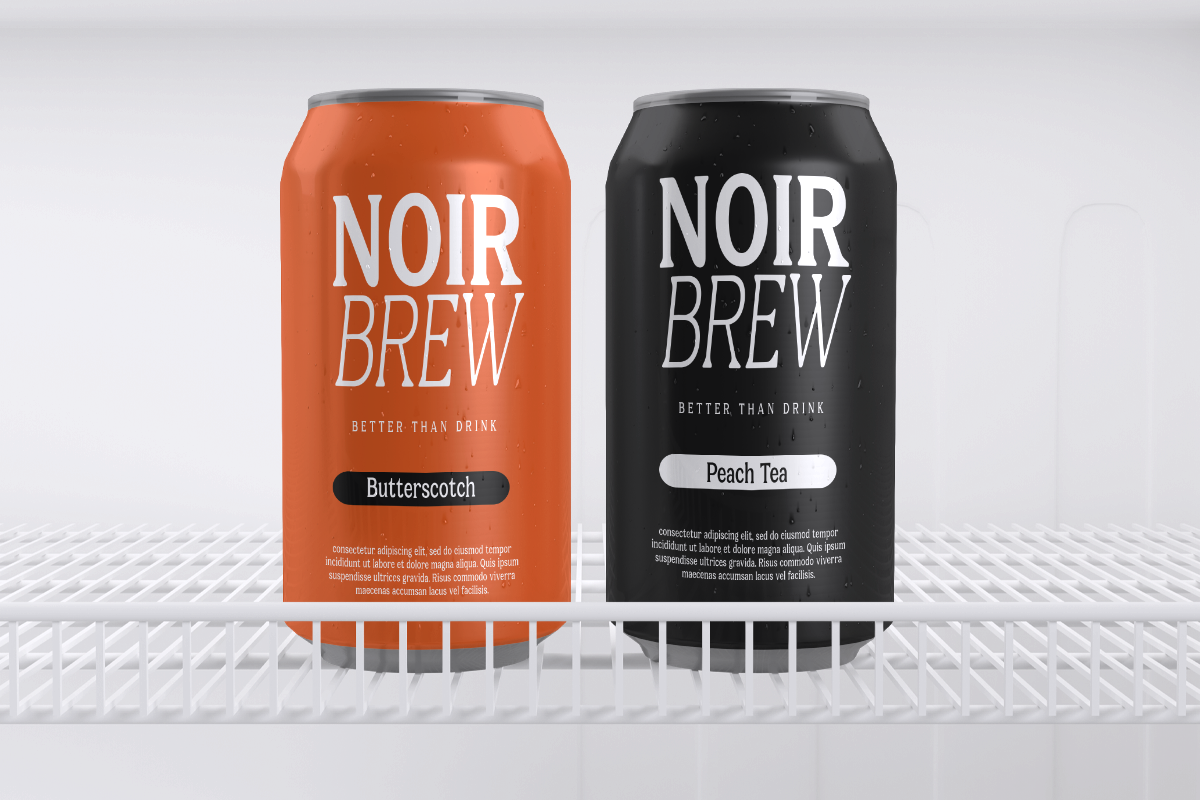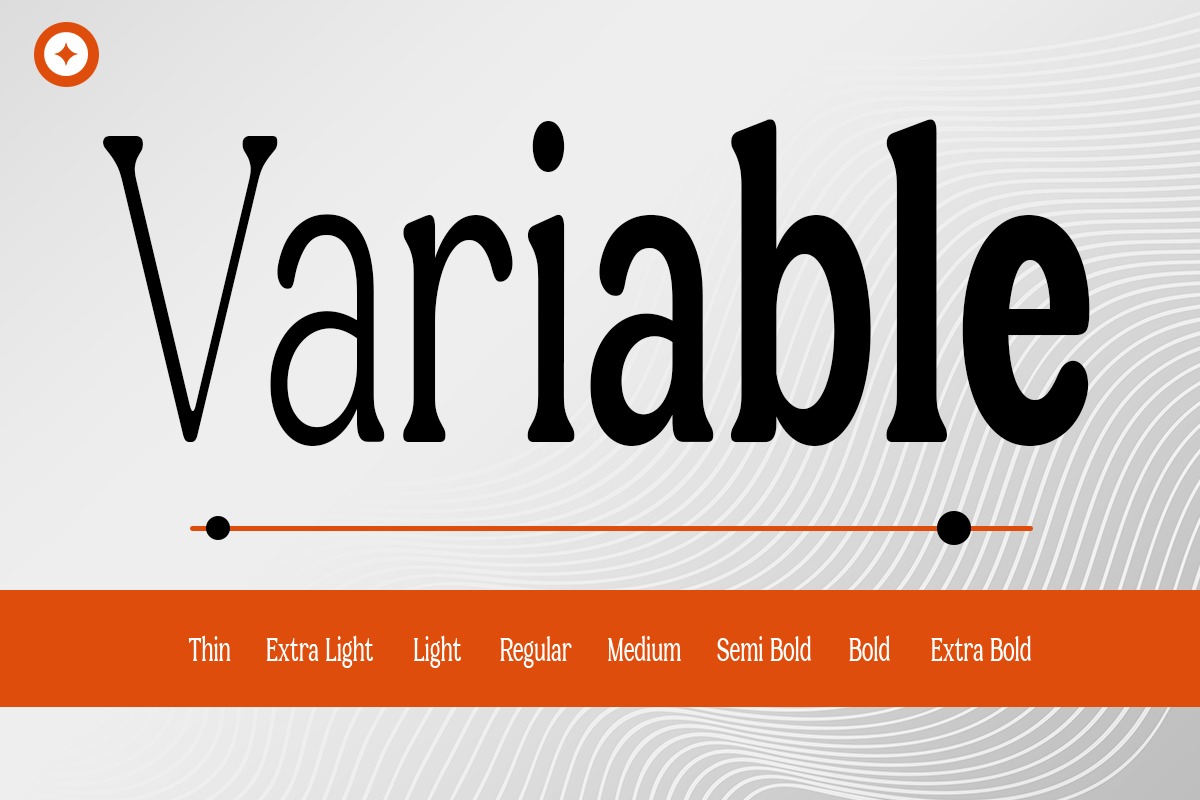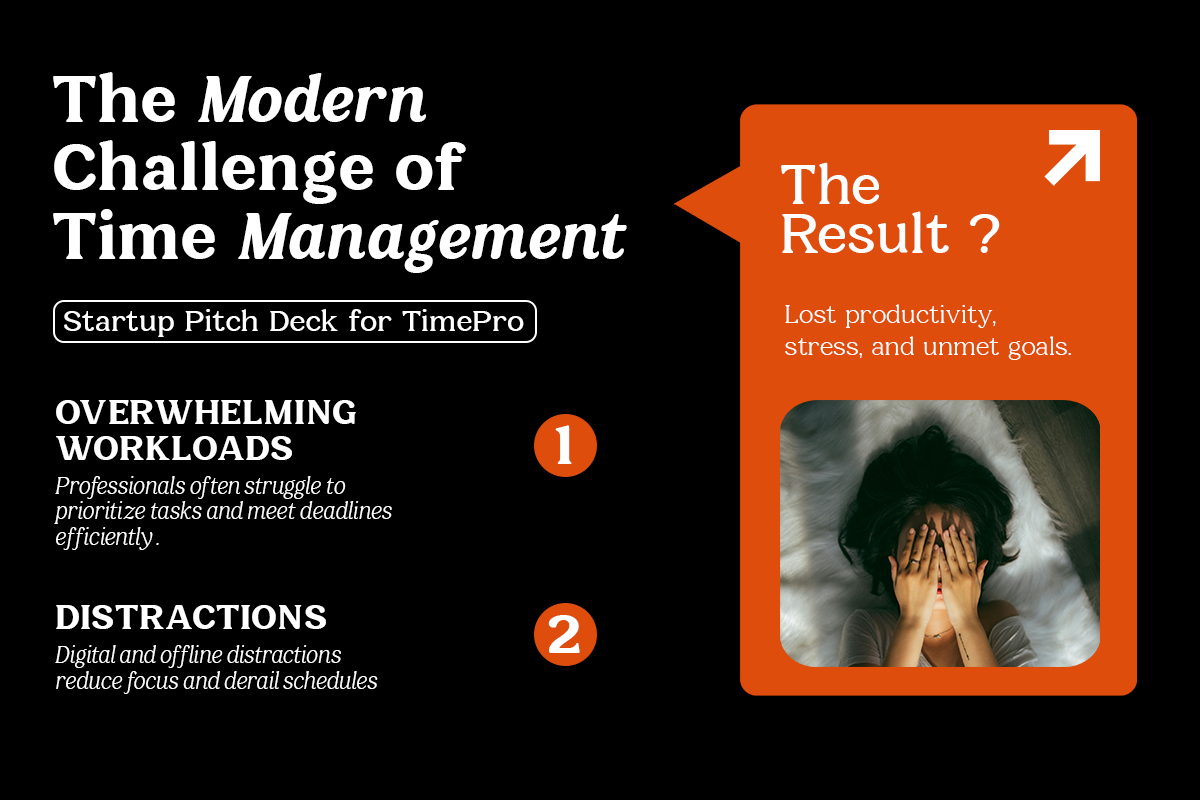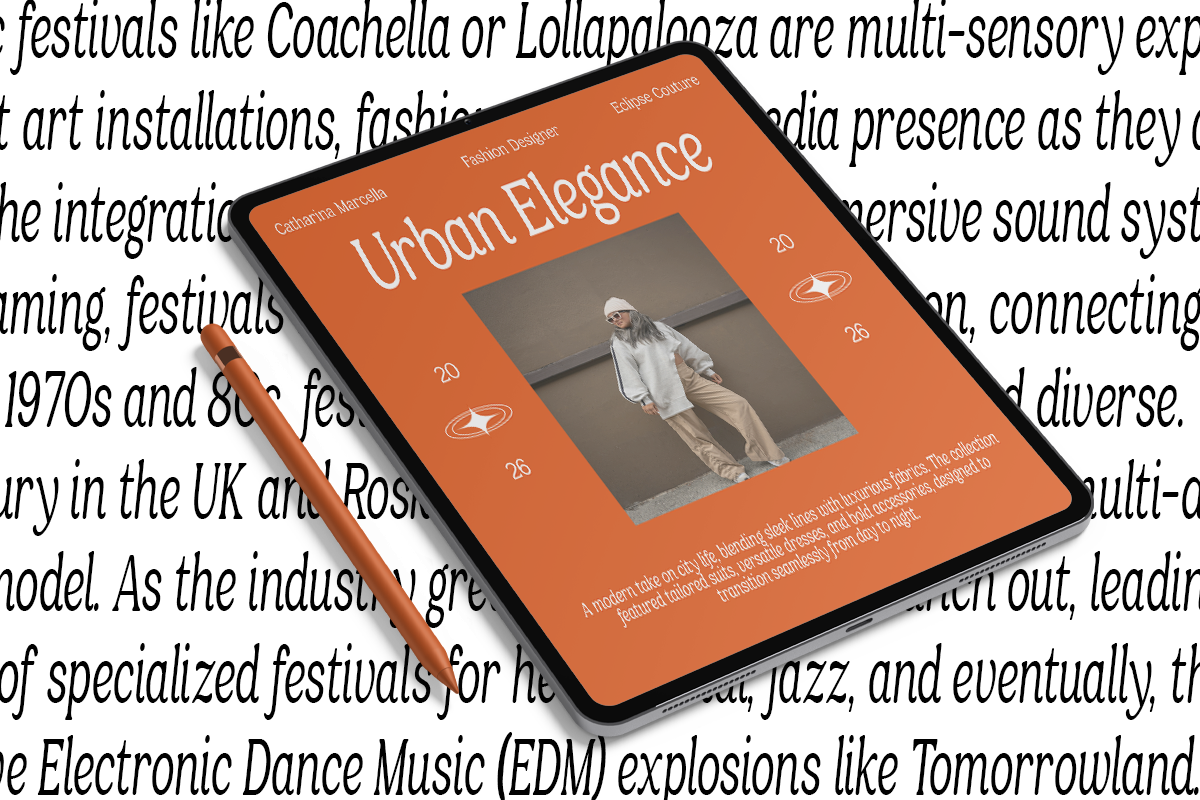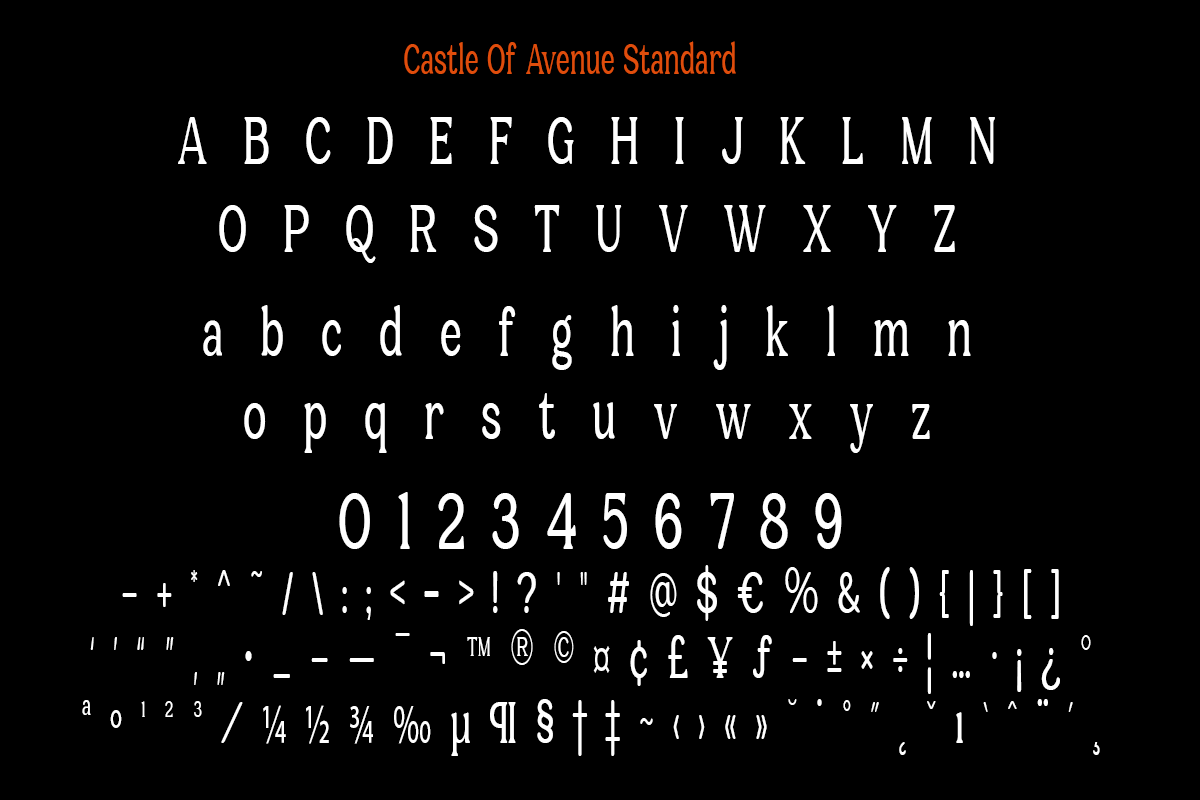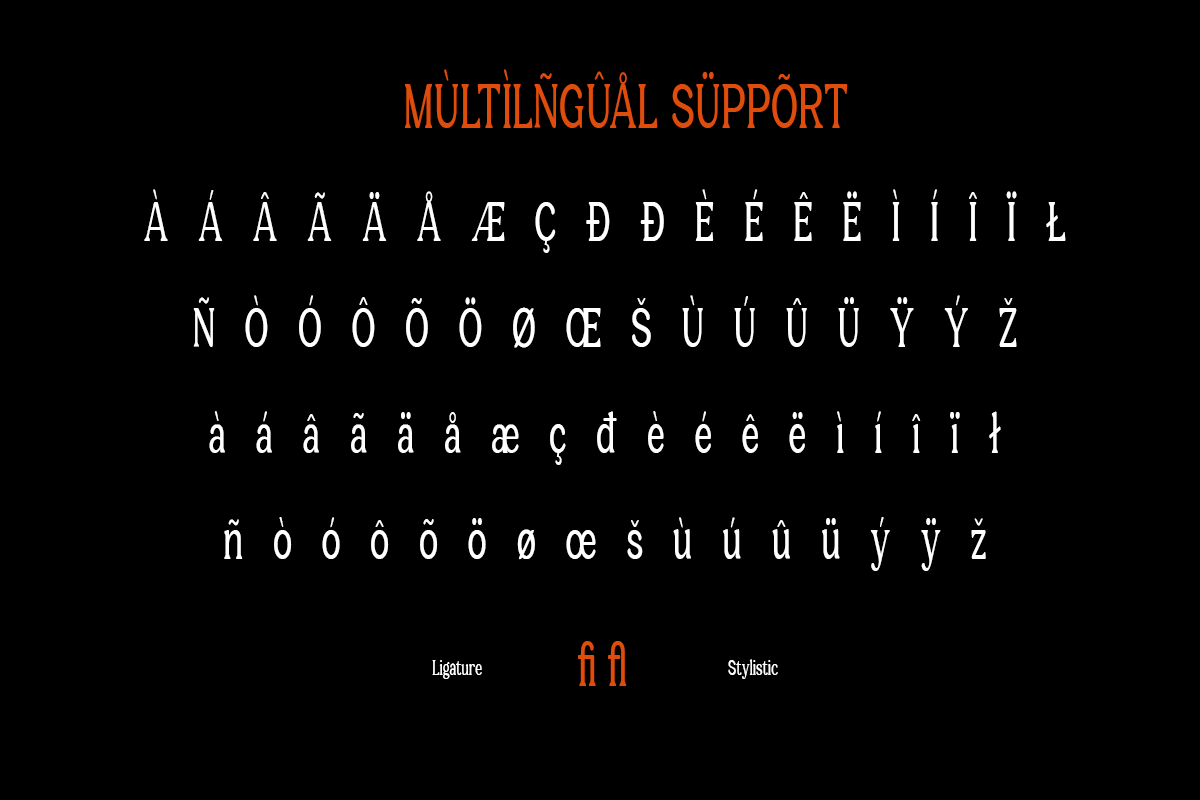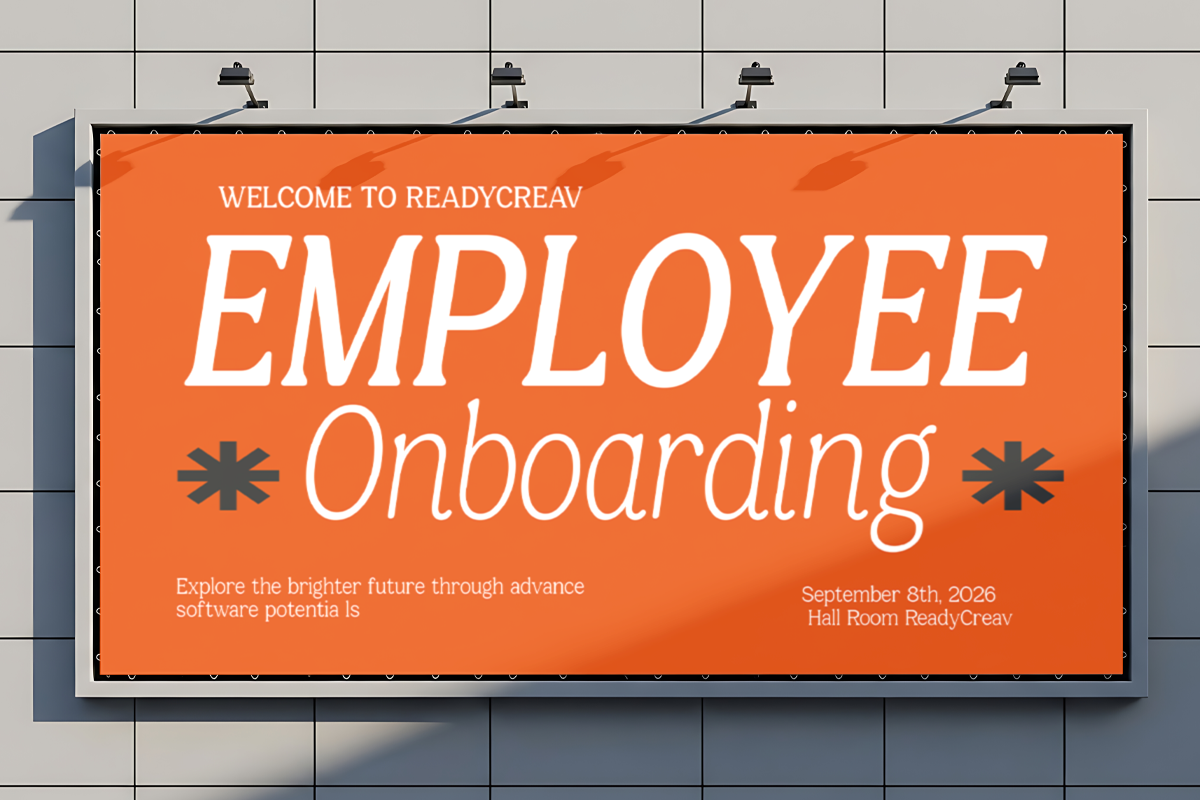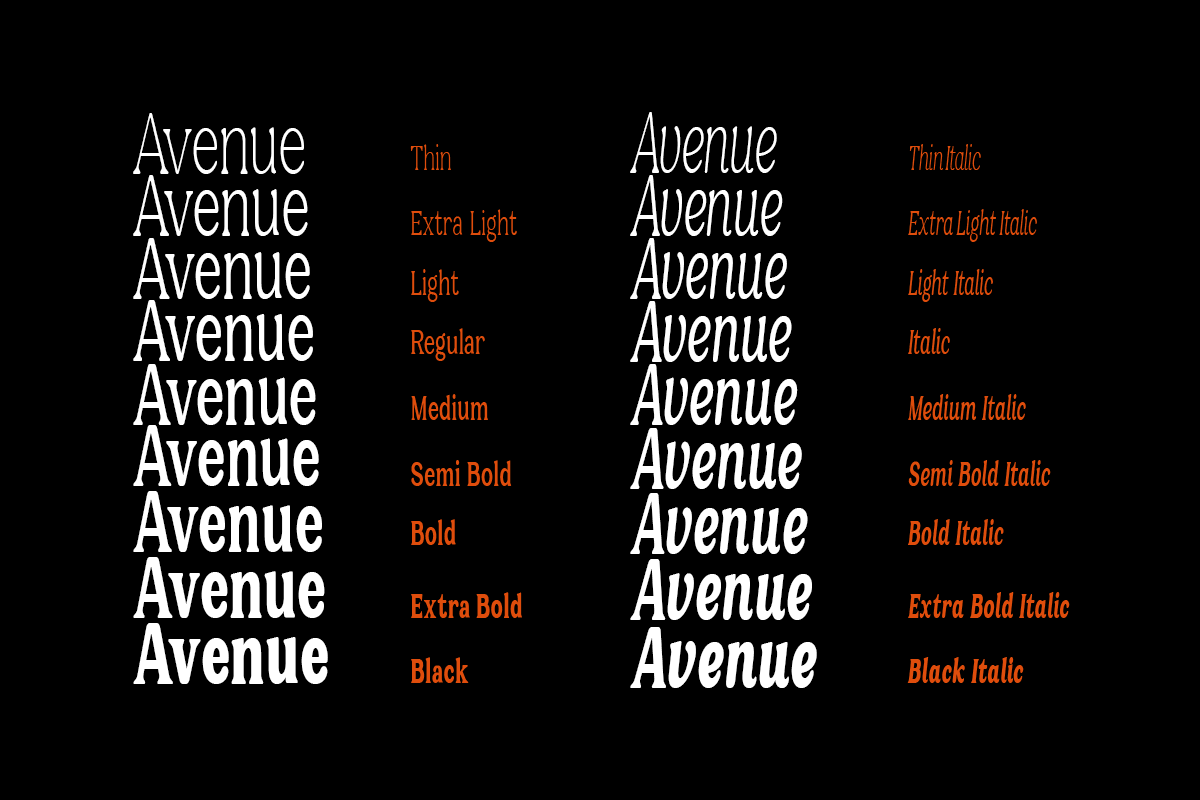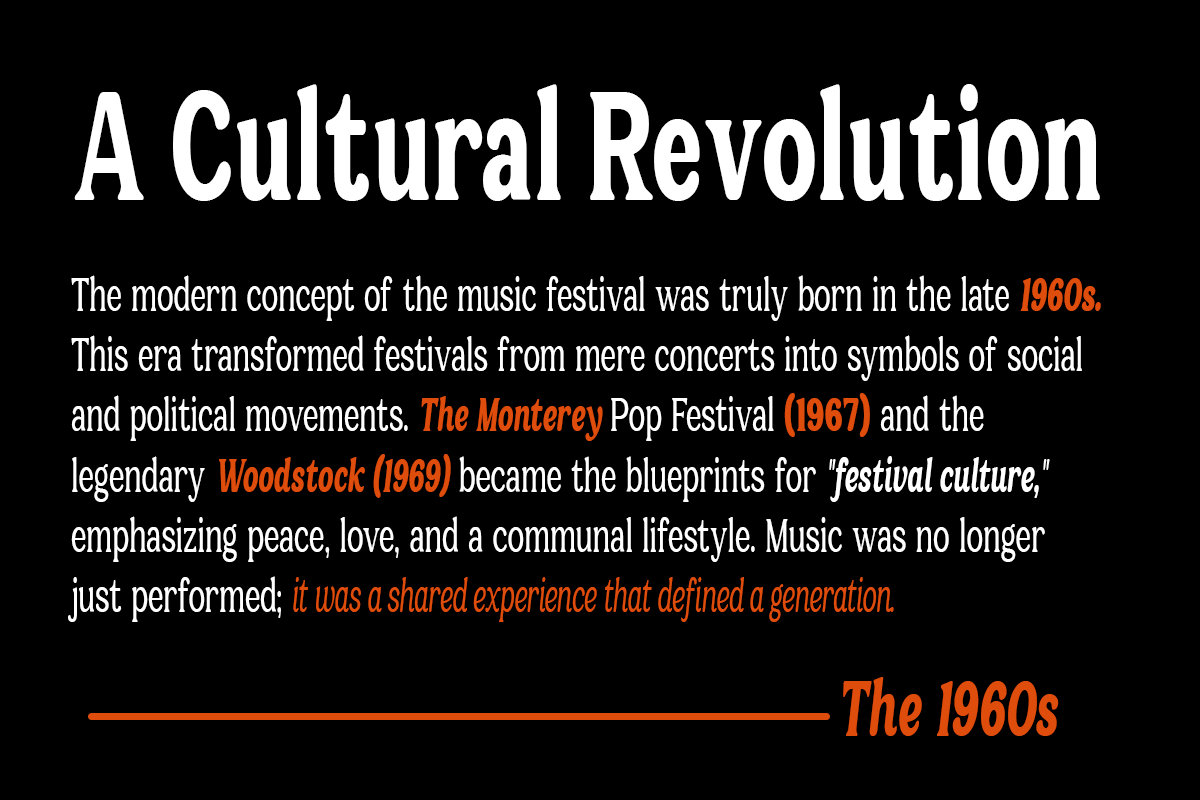
Castle Of Avenue - A Serif Family
Castle of Avenue is a refined serif family font designed to bring elegance, versatility, and timeless sophistication into modern design. With 18 style variations, this typeface offers a complete typographic system that balances classic serif beauty with contemporary flexibility. Its graceful curves and strong letterforms create a harmonious blend of readability and visual impact.
Perfect for branding, editorial design, luxury packaging, fashion magazines, logos, and high-end visual identities, Castle of Avenue adapts effortlessly across various creative needs. From delicate italic styles to bold and powerful weights, this font family allows designers to build cohesive and dynamic typography systems with ease.
Whether you're crafting a premium brand identity, designing elegant publications, or creating stylish marketing visuals, Castle of Avenue delivers a polished and professional look. Its versatility and wide range of styles make it an essential font family for designers who seek both functionality and aesthetic excellence.